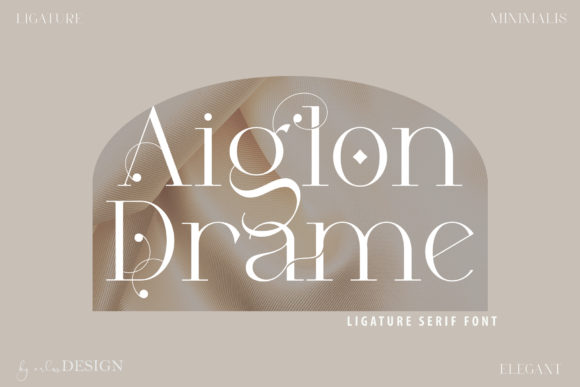
Aiglon Drame Font: Elevate Your Designs with Elegance and Sophistication
In the world of typography, few fonts manage to strike a balance between elegance and versatility. Aiglon Drame, a delicate and elegant serif font, is one such exceptional find. With its PUA encoding, this beautiful font offers a wide range of glyphs and ligatures, making it a perfect addition to any design project. In this article, we’ll explore the features, benefits, and uses of Aiglon Drame, and why it’s a must-have for designers and creatives.
The Characteristics of Aiglon Drame Font
Aiglon Drame is a serif font that exudes refinement and sophistication. Its delicate lines and curves create a sense of elegance, making it suitable for designs that require a touch of luxury. The font’s classic feel is balanced by its modern approach to typography, ensuring it remains versatile and adaptable to various design contexts.
One of the standout features of Aiglon Drame is its PUA (Private Use Area) encoding. This means that the font includes a wide range of glyphs and ligatures that can be easily accessed, allowing designers to experiment with different styles and effects. Whether you’re working on a branding project, a website, or a print design, Aiglon Drame provides the flexibility to create unique and captivating text.
The Benefits of Using Aiglon Drame
So, why should you choose Aiglon Drame for your next design project? Here are a few compelling reasons:
- Elegance and Sophistication: Aiglon Drame adds a touch of luxury to any design, making it perfect for high-end branding, editorials, and websites.
- Versatility: The font’s classic feel and modern approach ensure it fits seamlessly into various design contexts, from traditional to contemporary.
- Easy to Use: With PUA encoding, accessing glyphs and ligatures is straightforward, saving you time and effort in your design process.
- High Readability: Aiglon Drame’s clear and well-defined letterforms ensure excellent readability, making it suitable for body text as well as headlines.
Creative Applications of Aiglon Drame
Aiglon Drame’s versatility makes it suitable for a wide range of design applications. Here are some creative ways to use this beautiful font:
- Branding and Logotypes: Use Aiglon Drame to create elegant and memorable logos that convey luxury and sophistication.
- Web Design: Enhance your website’s typography with Aiglon Drame, creating a refined and professional online presence.
- Print Design: From business cards to brochures, Aiglon Drame adds a touch of elegance to any print material.
- Editorials and Magazines: Use Aiglon Drame for article titles, headings, and body text to create a cohesive and stylish editorial design.
How to Use Aiglon Drame Effectively
To get the most out of Aiglon Drame, consider the following tips:
- Pair it with Complementary Fonts: Combine Aiglon Drame with sans-serif fonts or script fonts to create visual interest and contrast.
- Experiment with Ligatures: Take advantage of Aiglon Drame’s ligatures to add a unique touch to your text.
- Adjust Font Sizes and Weights: Use different font sizes and weights to create a clear visual hierarchy in your design.
- Pay Attention to Line Spacing: Ensure adequate line spacing to maintain readability and prevent the text from feeling cramped.
Aiglon Drame is a beautiful and versatile serif font that can elevate any design project. With its elegant feel, PUA encoding, and wide range of glyphs and ligatures, it’s an excellent choice for designers and creatives looking to add a touch of sophistication to their work. Whether you’re working on a branding project, website, or print design, Aiglon Drame is sure to impress. So why not give it a try and see the amazing results for yourself?